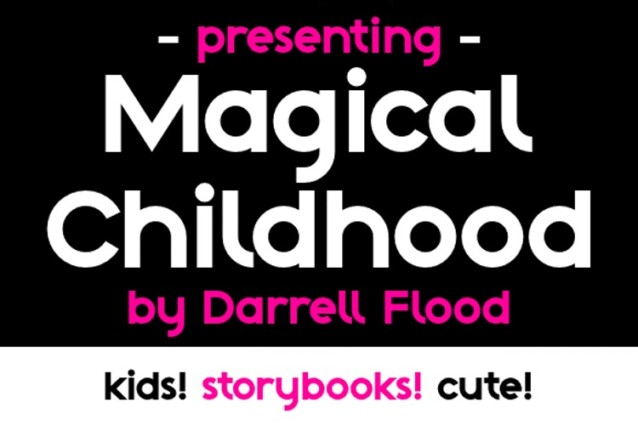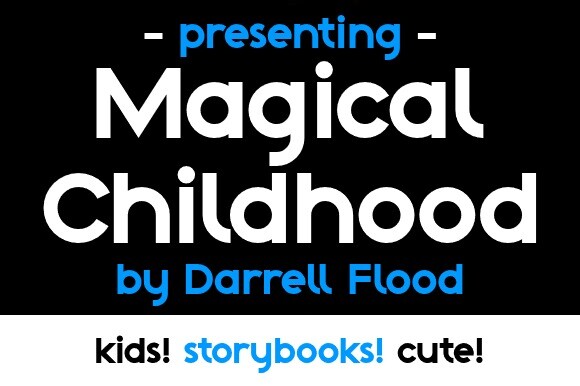
Magical Childhood Font
Magical Childhood Font is a modern and minimalist typeface designed by Dadiomouse with an elegant and trendy touch. With a clean and simple design style, Magical Childhood can be used on a variety of projects, from editorial, digital, and print design.